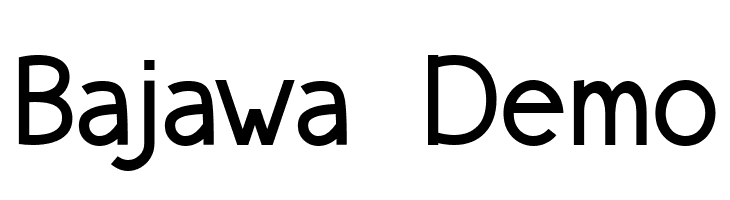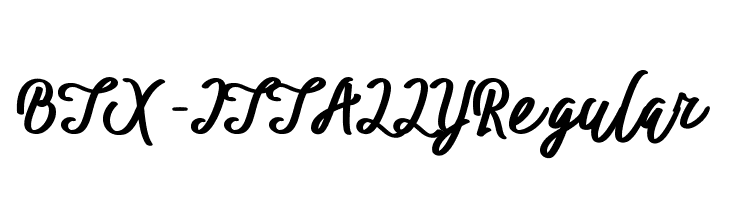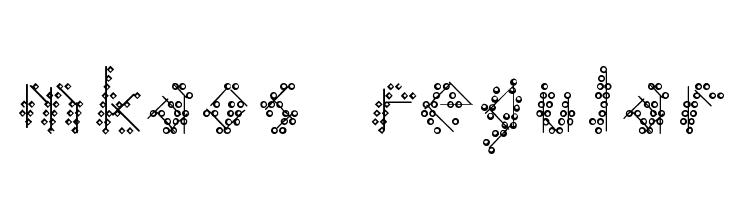
Playful handwritten font with rounded edges.
A flowing, cursive font with interconnected letters and a smooth, elegant style.
A bold, shadowed font with a three-dimensional effect, perfect for impactful designs.
A modern, geometric font with bold lines and unique shapes.
A bold, handwritten-style font with a playful and informal appearance.
A bold, italicized font with a futuristic engraved style.